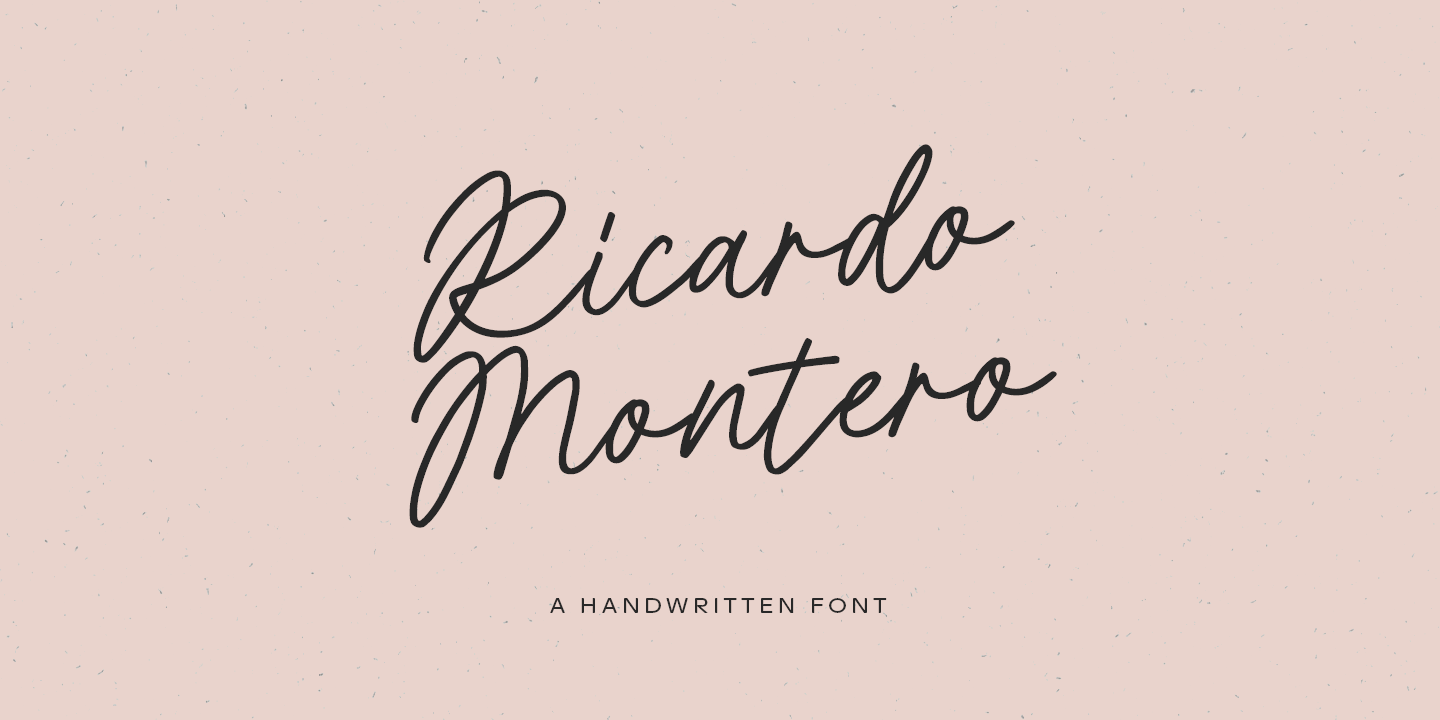
Ricardo Montero Font Free Download is an elegant and expressive script typeface that captures the beauty of fluid, hand-drawn lettering. With its flowing strokes, artistic curves, and refined character, this font is perfect for branding, wedding invitations, product packaging, social media graphics, and creative projects that require a personal and sophisticated touch.
The natural rhythm and stylish details of Ricardo Montero ensure excellent readability while adding an authentic, luxurious feel to both digital and print designs. Whether used for signature logos, elegant headlines, or custom stationery, Ricardo Montero Font Free Download brings a unique charm and high-end quality to your creative work.